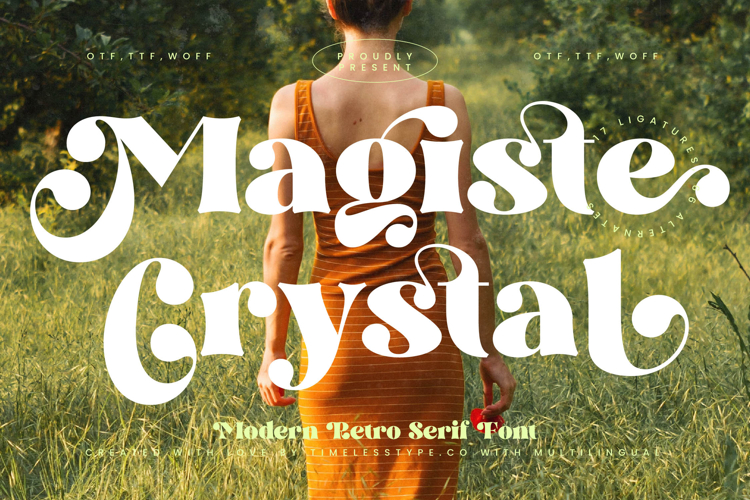
Magiste Crystal - Modern Retro Serif Font
Magiste Crystal is a modern retro serif font that combines bold character with decorative elegance, creating a typeface that feels both nostalgic and stylishly contemporary. Its chunky letterforms, playful curves, and distinctive swashes give it a striking presence, while its 17 ligatures and 96 alternates provide designers with a wide range of creative variations. This makes Magiste Crystal not only versatile but also highly expressive, perfect for turning simple text into a captivating visual statement.
This font is designed to shine in headline typography, where its bold weight and ornamental details immediately draw attention across posters, banners, and editorial layouts. In branding and logo design, Magiste Crystal communicates personality and sophistication, making it an excellent choice for fashion labels, boutique products, or lifestyle brands seeking a bold yet refined identity. It works beautifully in packaging design, especially for artisanal food, beverages, and creative lifestyle goods, where typography needs to stand out on the shelf with flair and character.
Magiste Crystal also thrives in advertising campaigns, event posters, and promotional graphics, where its ligatures and alternates allow for dynamic customization that enhances storytelling. For social media graphics and digital platforms, the font delivers high visibility and a groovy modern-retro aesthetic that resonates with today’s audiences.
Its versatility extends into wedding invitations, editorial spreads, and lifestyle branding, where the blend of retro flair and modern serif design creates timeless elegance. With multilingual support, Magiste Crystal adapts seamlessly to international markets, making it suitable for global projects.
Ultimately, Magiste Crystal is more than a retro serif—it is a design tool for bold, artistic, and stylish creativity. Whether used in headlines, logos, packaging, advertising, or digital content, it ensures every word radiates charm, confidence, and unforgettable character.